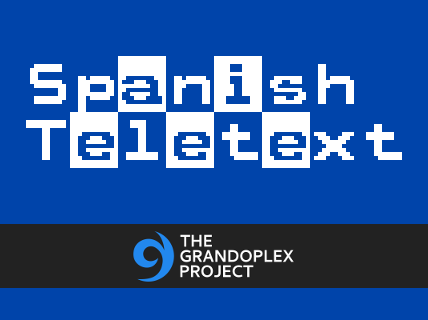
Spanish Teletext (previously known as the Telespania) is a libre as public domain monospaced pixel sans serif typeface inspired from the current teletext services in Austria, Germany, Poland and Spain, created using with FontForge. Version 1.1.0 (October 9, 2015) - Added Polish alphabet characters and section sign. - Fixed guillemot right to mirror. - Heavily redesigned. - Reduced 100 pixels in scale. - Reduced two height pixels in resolution. - Removed few unused characters. Browse these font source files available at notabug.org: https://notabug.org/grandchaos9000/ttf-esteletext (C) 2009-2015 The Grandoplex Project. Made in Al Khobar, Saudi Arabia. This font by Jayvee Enaguas (GrandChaos9000) is licensed under the CC0 1.0 (Public Domain) (https://creativecommons.org/publicdomain/zero/1.0). |